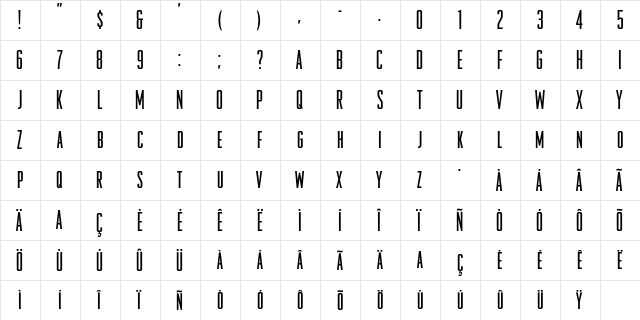
OdeonCondensedRegular Regular
Design Context for OdeonCondensedRegular Typeface
OdeonCondensedRegular takes a measured approach to typography — its balanced proportions and neutral character make it a reliable workhorse for both digital and print work. The condensed width makes it efficient for tight spaces without sacrificing legibility.